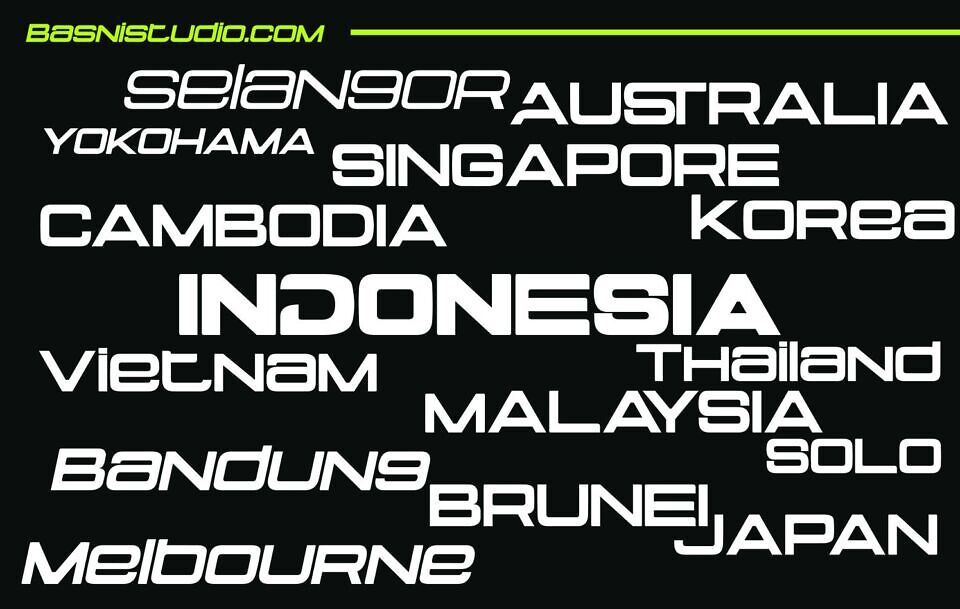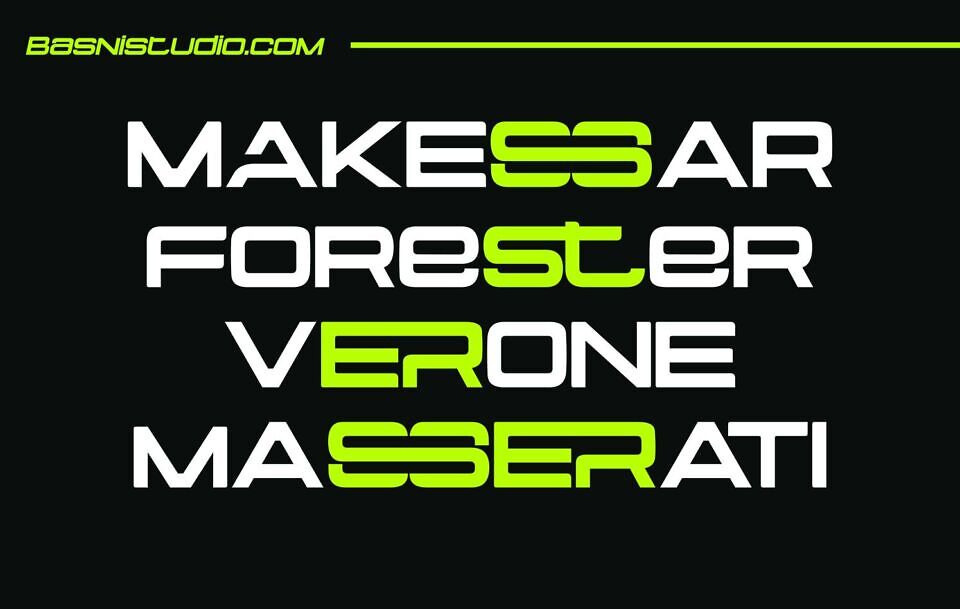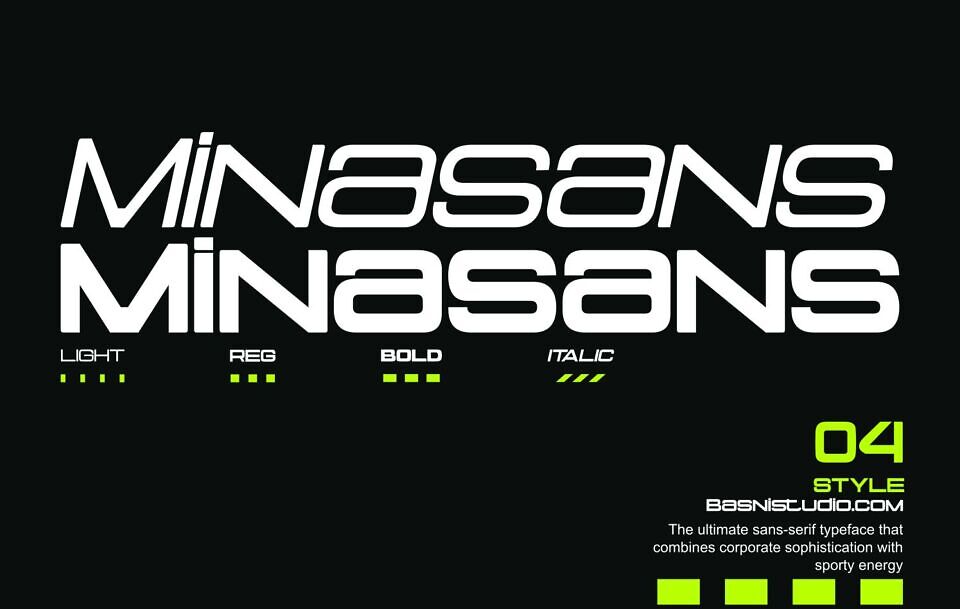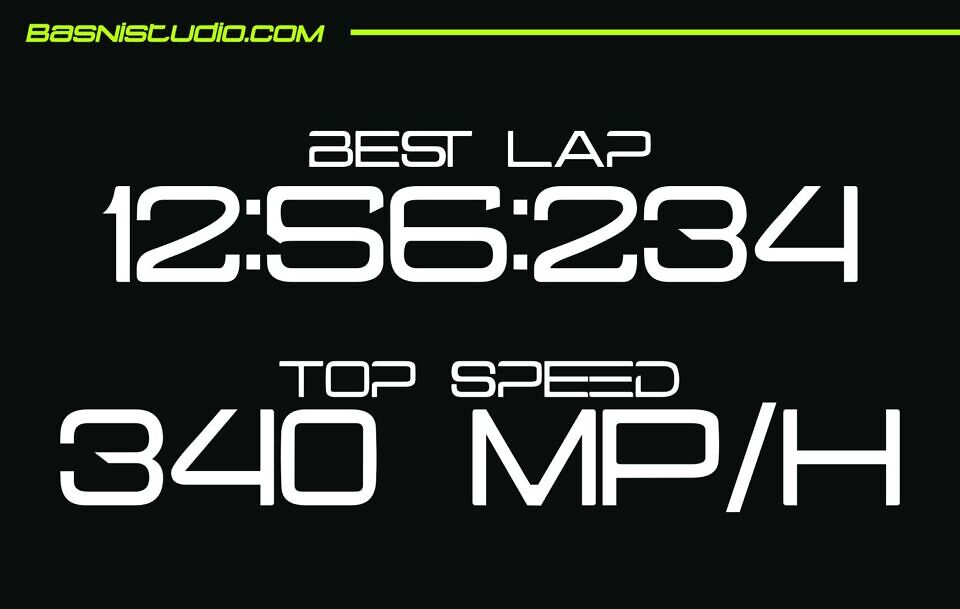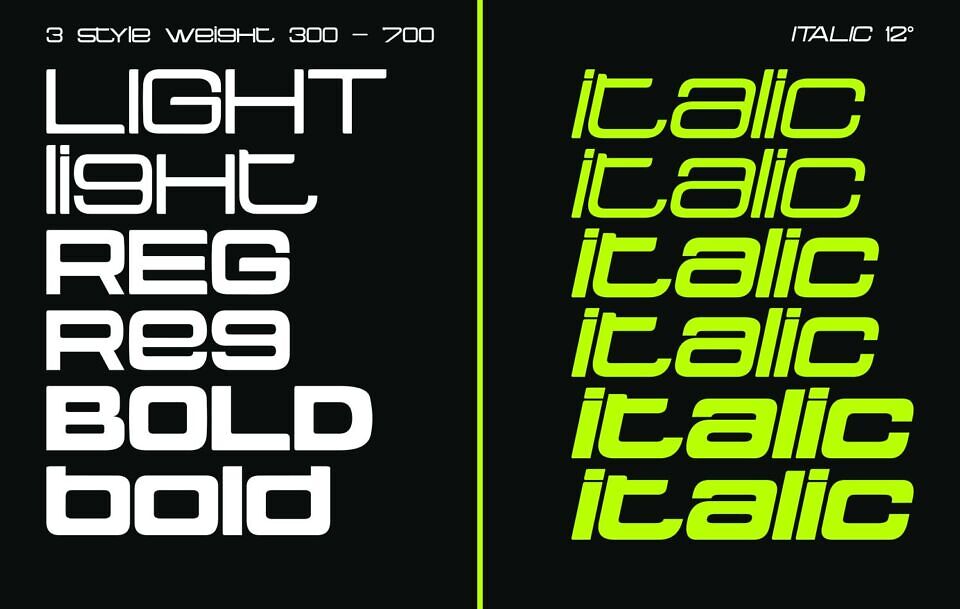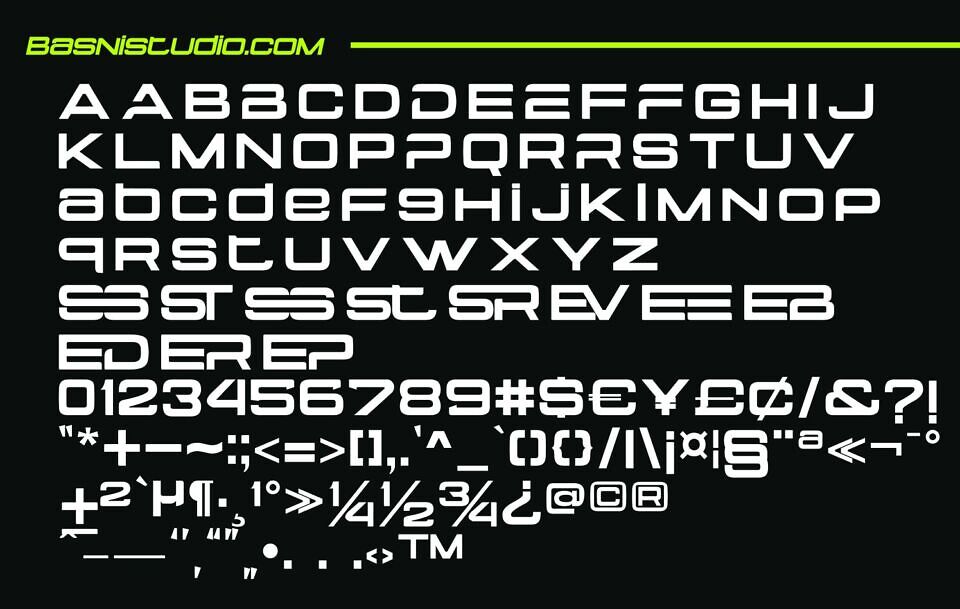
Minasans is the ultimate sans-serif typeface that combines corporate sophistication with sporty energy!
Designed for brands that mean business, Minasans is the ultimate sans-serif typeface that combines corporate sophistication with sporty energy.
Whether you’re crafting a bold brand identity, designing a high-impact website, or creating dynamic marketing materials, this font delivers clarity, confidence, and speed.